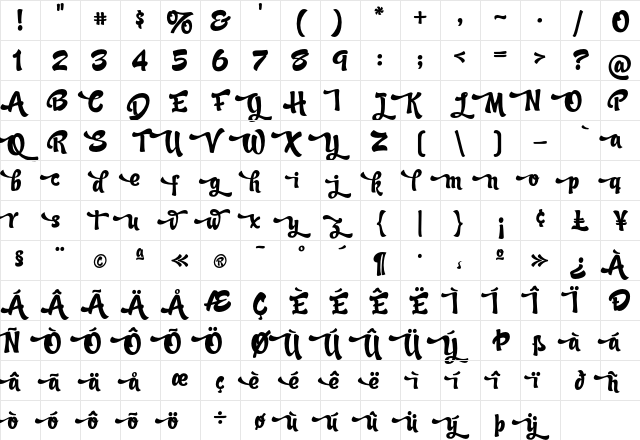
Complete Candy Script Swash Regular glyph index. Displaying only characters natively supported by Candy Script Swash Regular font.
Candy Script Swash flows with the natural rhythm of handwritten lettering, making it ideal for designs that call for warmth and personal expression.
Font Pairing: Combine Candy Script Swash with a simple geometric sans for maximum contrast - the tension between flowing curves and clean structure is a classic typographic pairing.
Pro Tip: Use Candy Script Swash for short runs of text - names, titles, or taglines. Extended body copy in script faces tires the eye quickly.